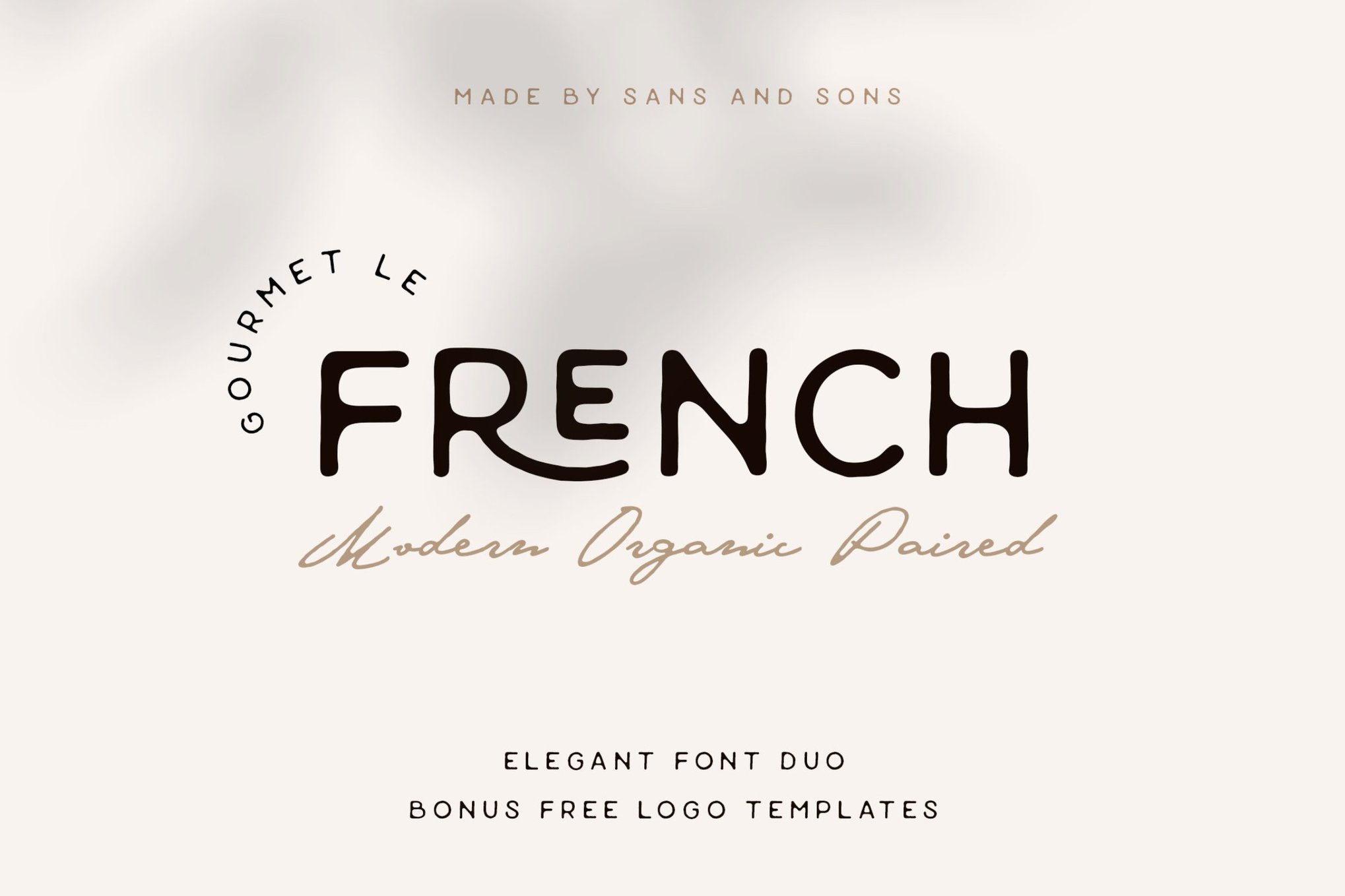
Gourmet Le French Modern Duo Font
Gourmet Le French Modern Duo Font is perfect for wedding invitations, luxury brand logos, restaurant menus, wine labels, packaging design, fashion magazines, boutique signage, greeting cards, social media posts, and elegant product branding that requires a sophisticated French-inspired aesthetic.
This font is exciting because it combines classic French elegance with modern design sensibilities, offering a duo-style typeface that pairs beautifully scripted letterforms with complementary sans-serif characters. The romantic and refined appearance makes it instantly eye-catching while maintaining excellent readability across various design projects.
The Gourmet Le French Modern Duo Font family typically includes regular and italic variations, uppercase and lowercase characters, numerals, punctuation marks, and special ligatures that enhance the authentic French typographic experience.